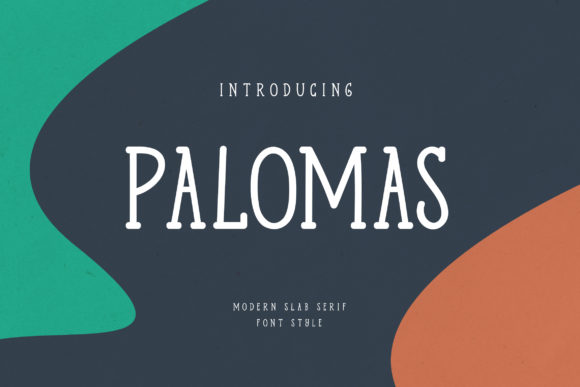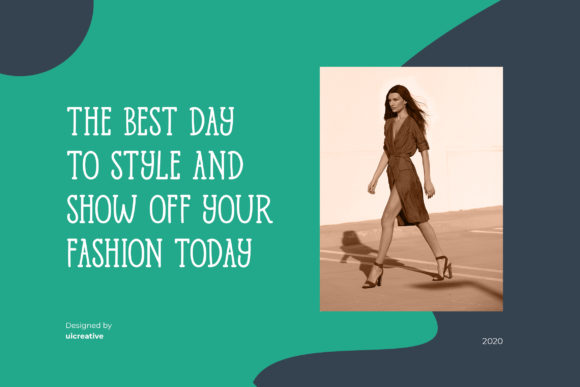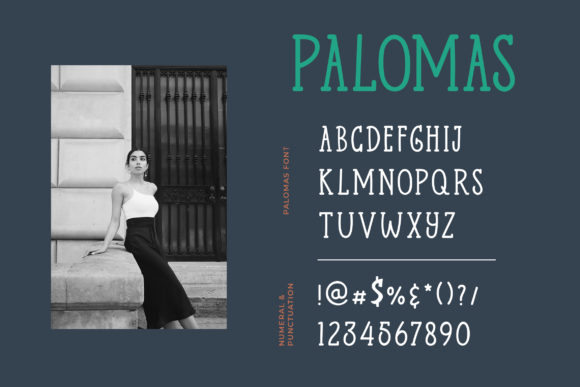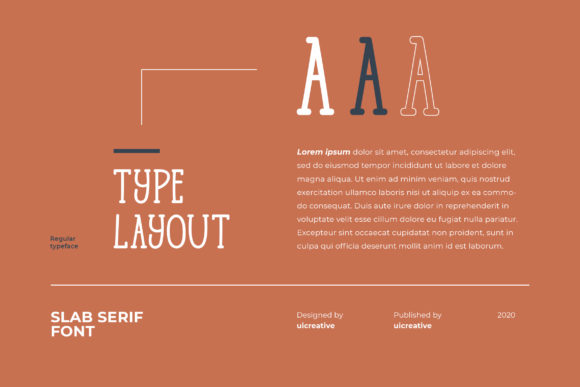
Palomas: A Casual and Versatile Slab Serif Font
Palomas is a distinctive slab serif font that combines a casual aesthetic with adaptability. This versatile typeface offers designers a powerful tool for creating impactful typography across a wide range of design projects.
Key Features of Palomas
- Casual Design: Features a relaxed and approachable appearance
- Adaptable Style: Suitable for a variety of design contexts and topics
- Slab Serif Structure: Incorporates the characteristic thick, rectangular serifs typical of slab serif fonts
- Versatile Application: Can be used across numerous design projects
- Elevating Quality: Has the potential to enhance and uplift any creative project
Ideal Uses for Palomas
Palomas’ unique characteristics make it particularly well-suited for:
- Branding projects requiring a friendly, approachable look
- Editorial layouts for casual or lifestyle publications
- Social media graphics and digital content
- Packaging design for products targeting a relaxed demographic
- Advertising materials aiming for a laid-back vibe
When incorporating Palomas into your designs, consider the following tips:
- Use for both headlines and body text to showcase its versatility
- Experiment with different sizes to create hierarchy while maintaining readability
- Consider pairing with more formal fonts to create an interesting contrast
- Utilize its casual nature in projects where you want to convey approachability and friendliness
Palomas is an excellent choice for designers looking to add a casual and adaptable slab serif to their typographic toolkit. Its versatility makes it stand out in the world of typography. Whether you’re working on logo designs, creating layouts for lifestyle magazines, or developing branding for various businesses, Palomas offers the perfect blend of casualness and adaptability.